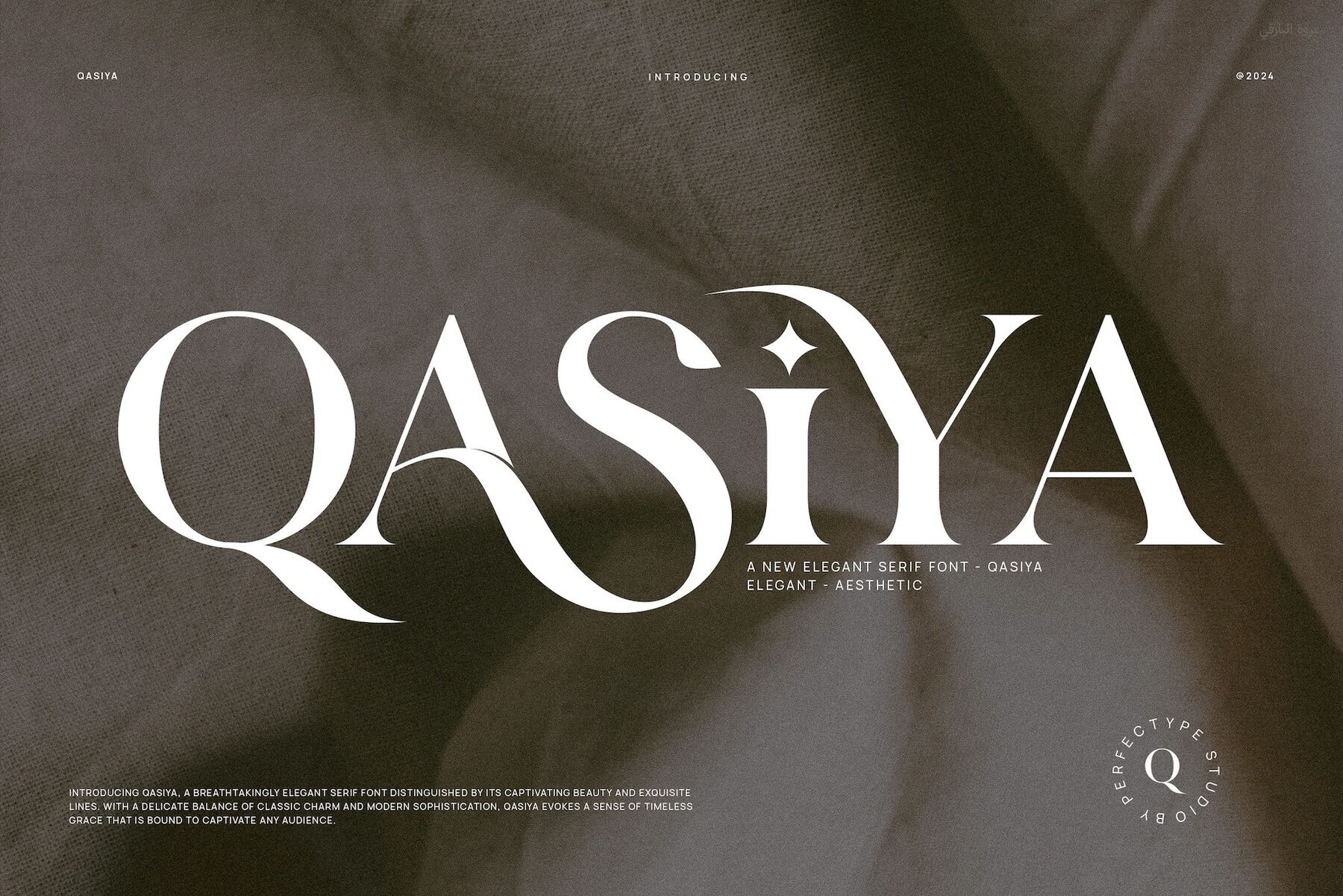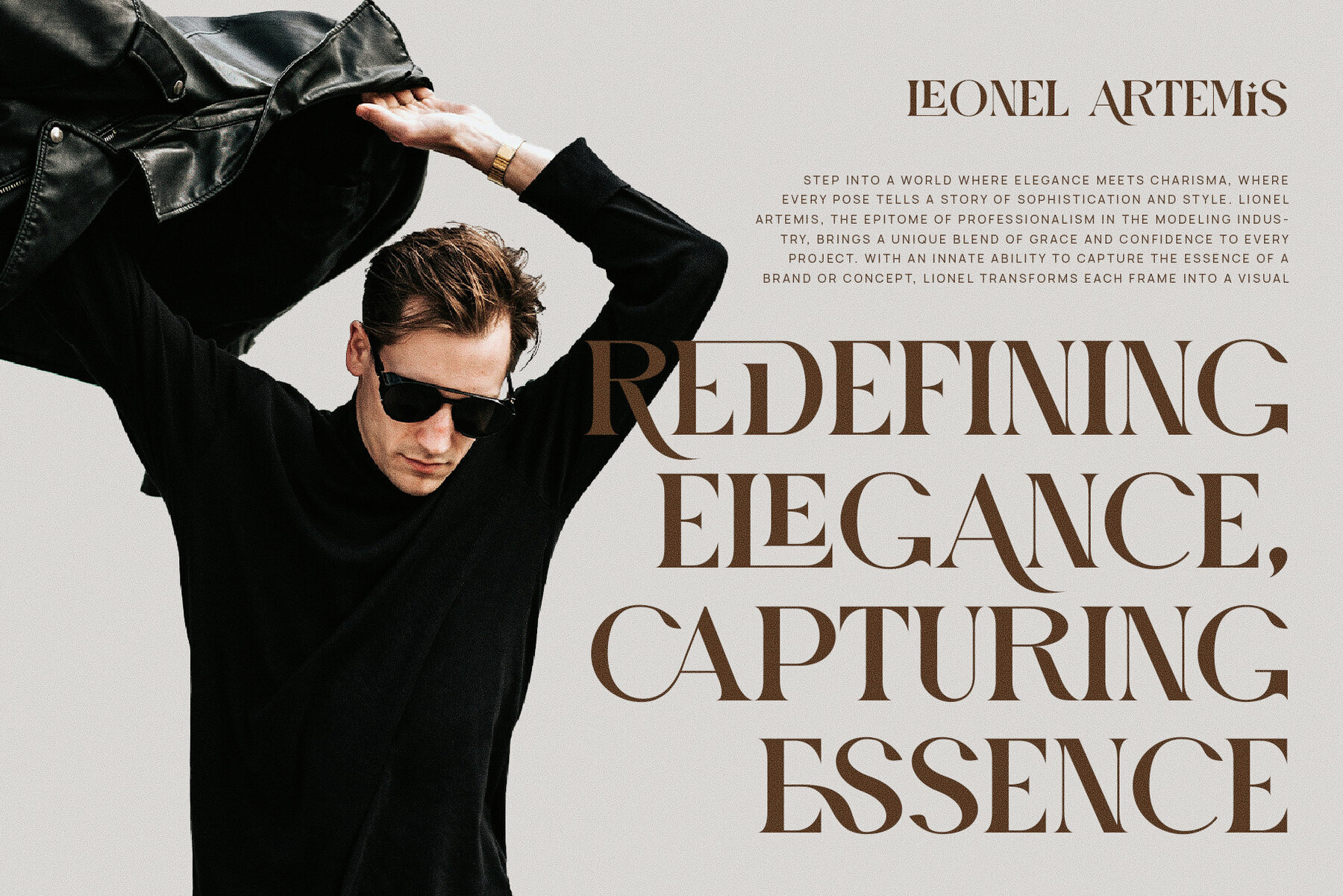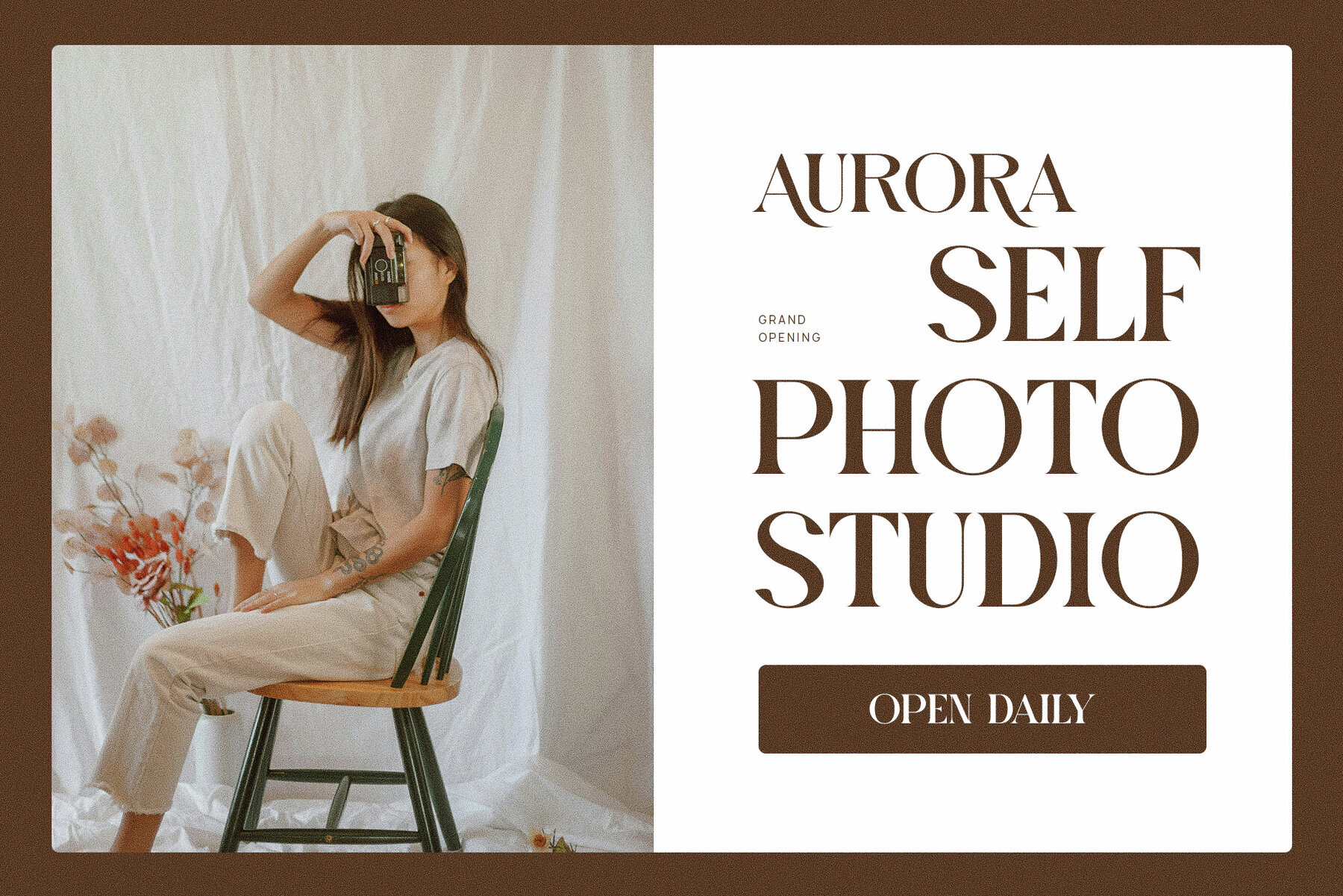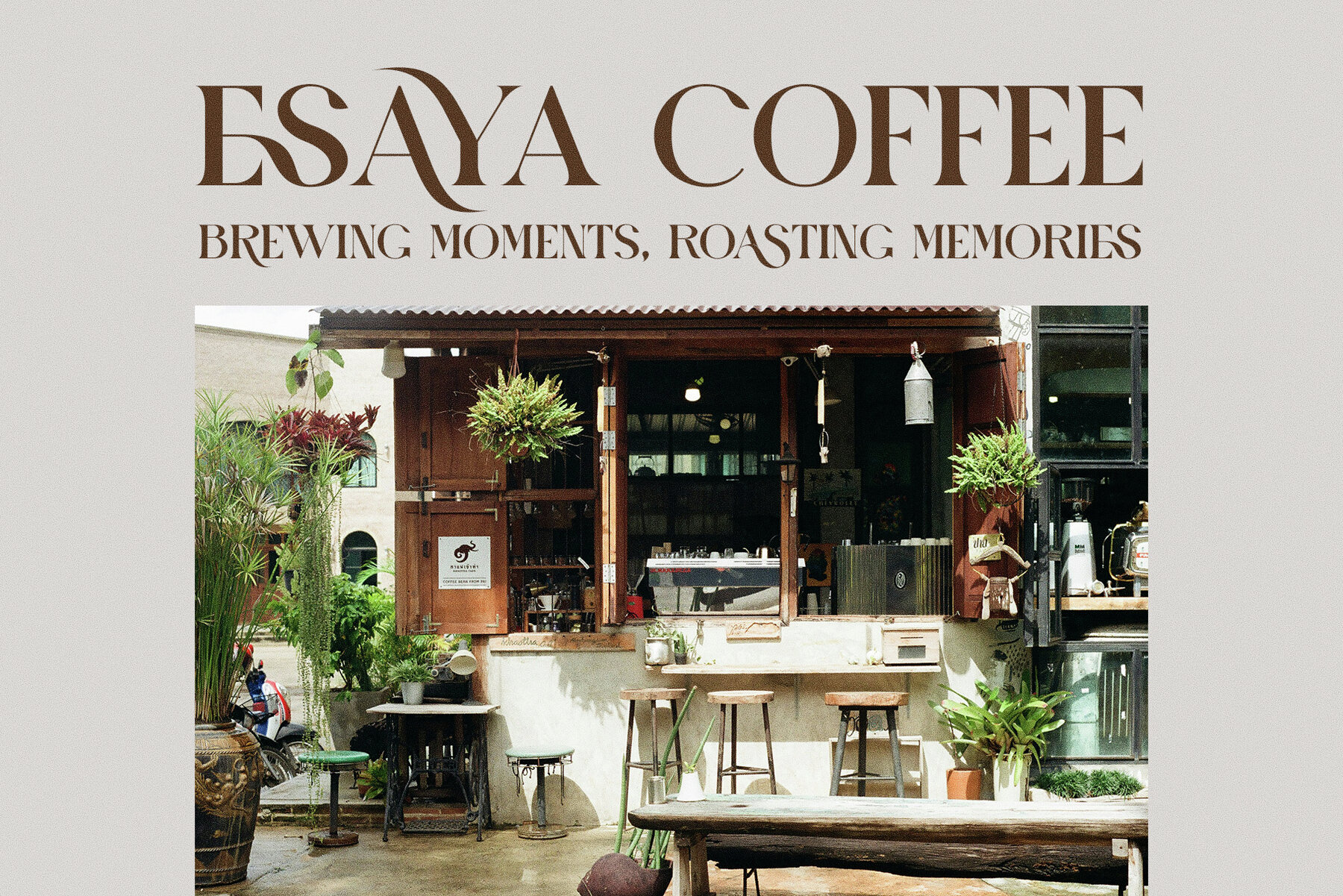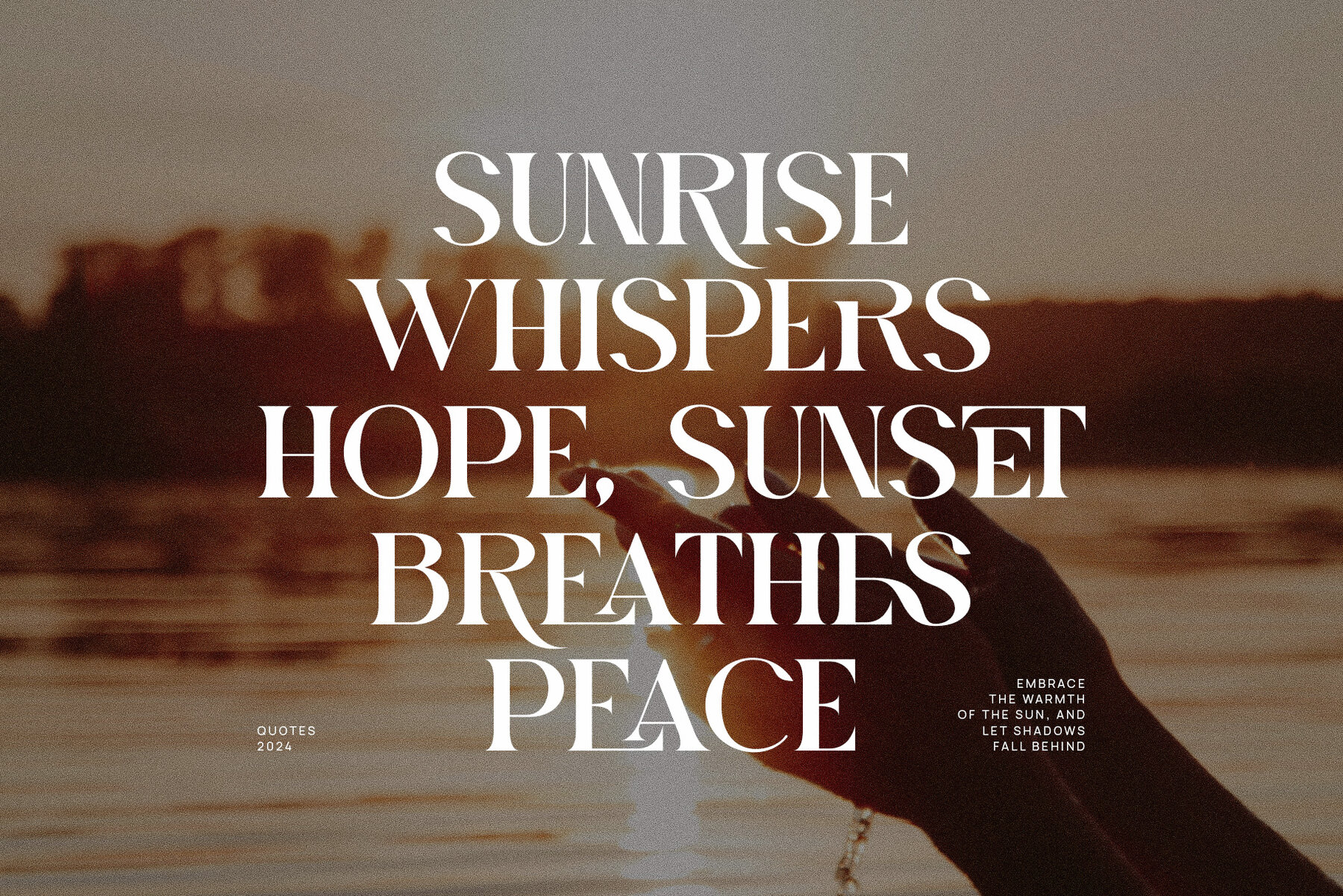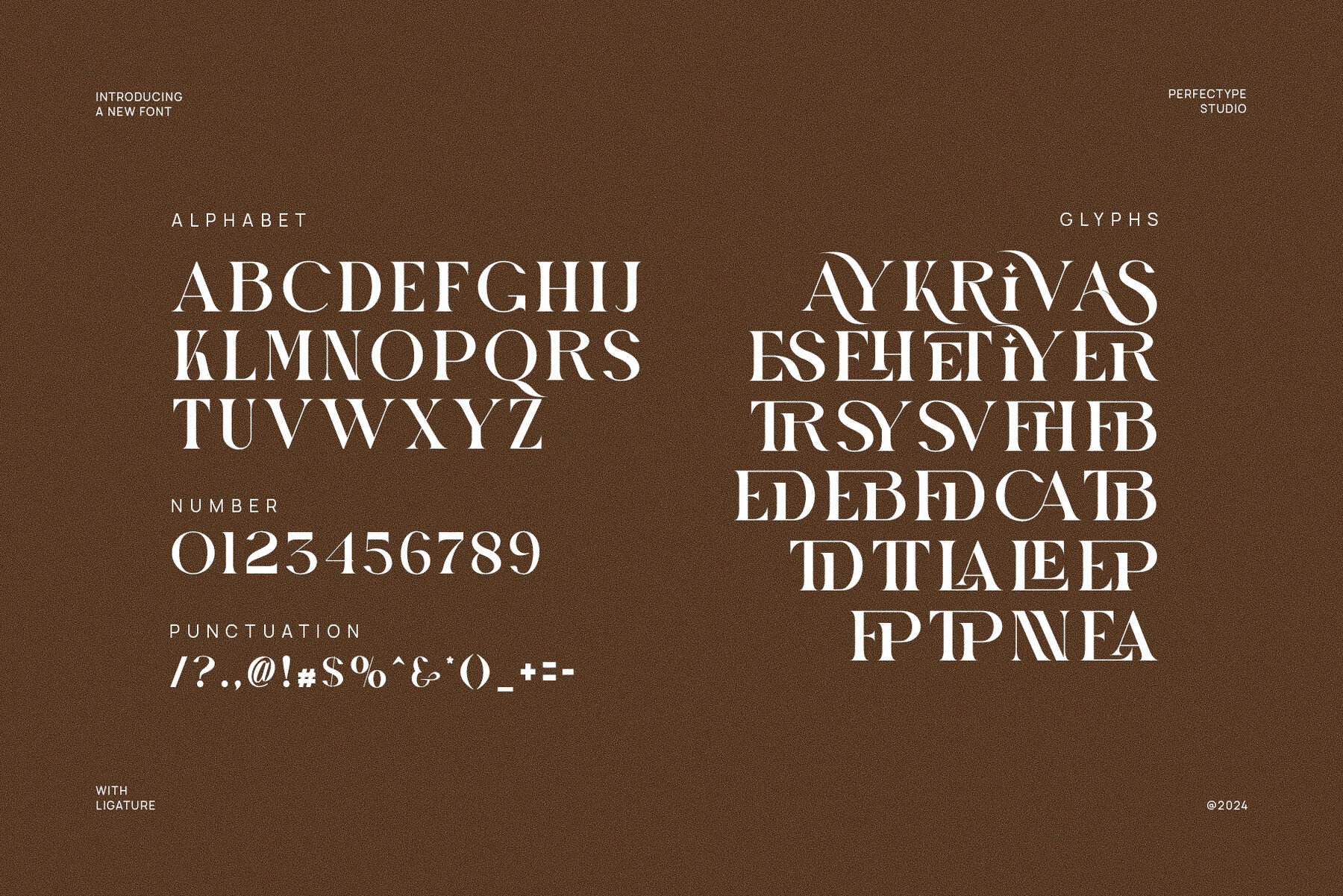
Qasiya Font
Qasiya
Qasiya Elegant Serif Font is a sophisticated typeface featuring timeless elegance with a modern twist. Its uniquely proportioned letterforms and meticulously crafted serifs make it an ideal choice for upscale branding and luxurious design projects. The font's graceful curves, refined details, and distinctive alternates provide designers with the flexibility to create seamless typography across various mediums. Perfect for high-end logos, brand identities, and product packaging, Qasiya offers a polished aesthetic that enhances all types of designs.
Balancing classic and contemporary features, Qasiya is suitable for large, impactful headlines and smaller, detailed text, ensuring readability without compromising style. It excels in diverse creative projects, from websites and magazines to advertisements and product labels. Particularly suited for industries like fashion, lifestyle, food, and boutique brands, its blend of elegance and modern appeal is key. Qasiya’s beautiful ligatures and alternate features allow further customization, offering unique and eye-catching design possibilities. This font is an essential tool for designers aiming to create memorable, high-end branding solutions that stand out with grace and sophistication.